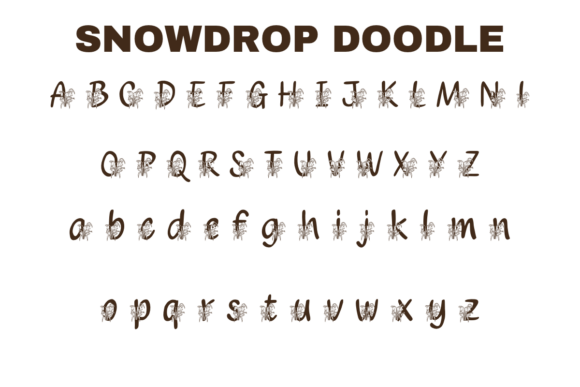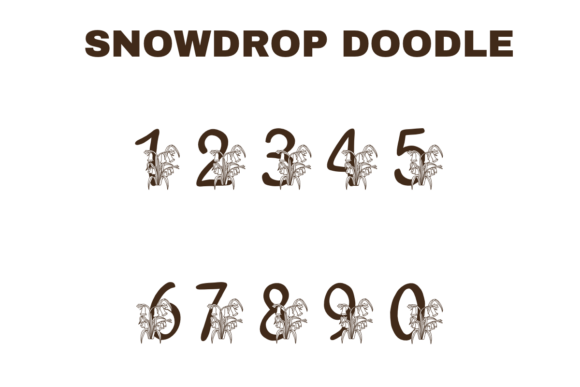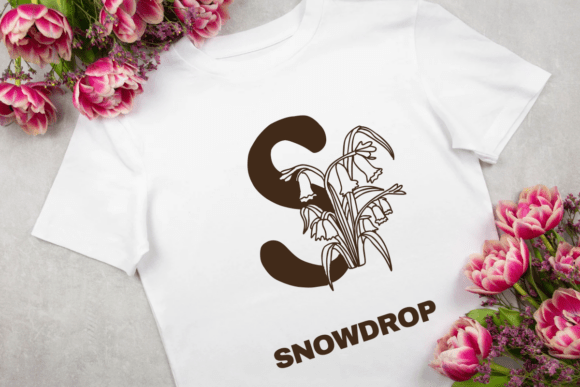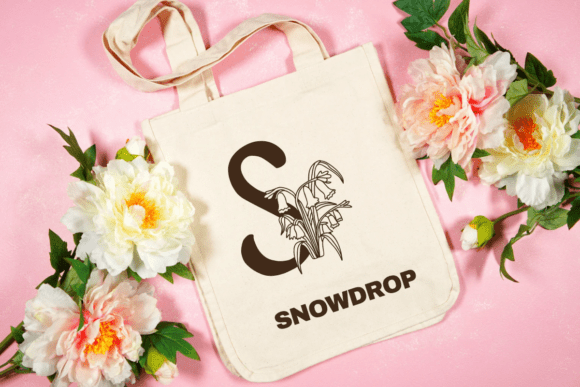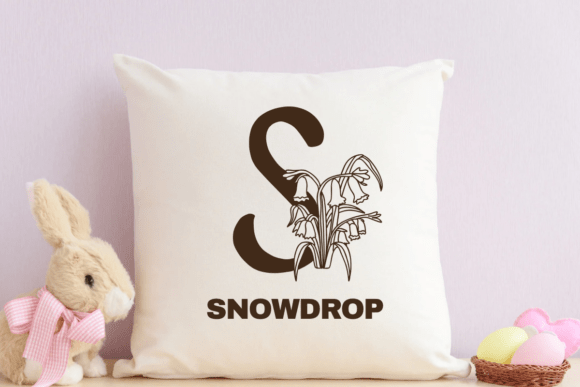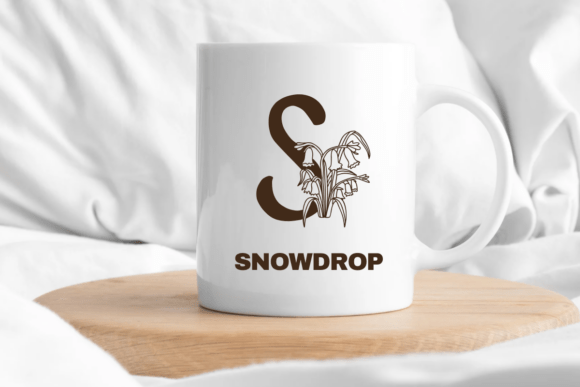
Introduction to Snowdrop Doodle Font
Snowdrop Doodle is a decorative font.
You can use it for taking notes, writing a diary, or making greeting cards However, you can still use it for other designs, such as banners, content, mugs, cards, shirts, stationery, social media posts, and more.
Key Features of Snowdrop Doodle Font
Why Choose Snowdrop Doodle Font?
Snowdrop Doodle Font offers exceptional quality and versatility, making it a valuable addition to your design toolkit. Whether you’re creating for personal projects or commercial use, Snowdrop Doodle Font delivers professional results.